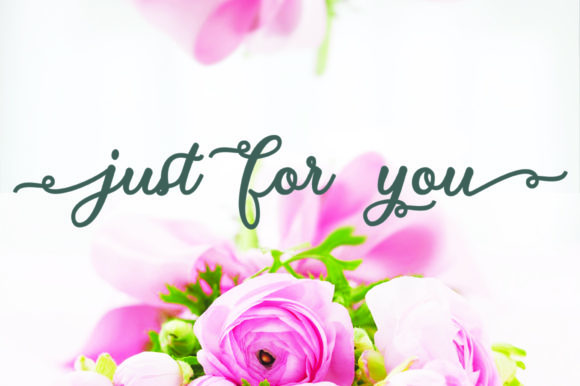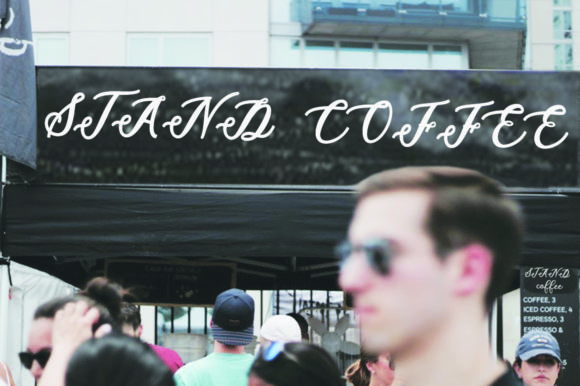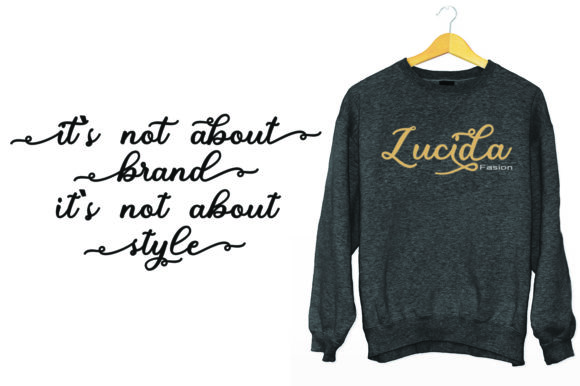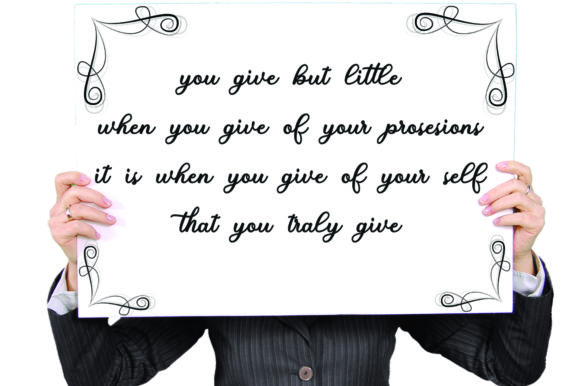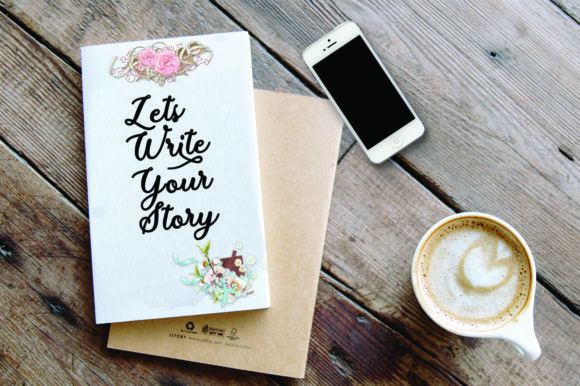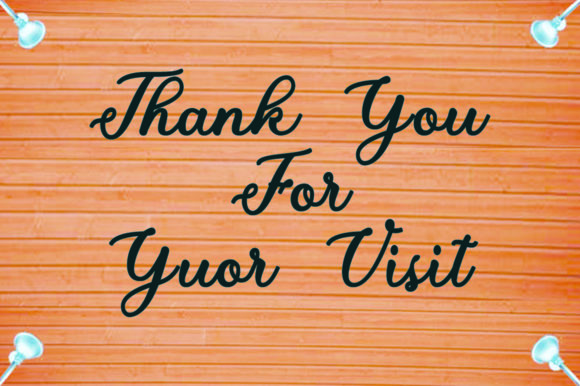
HomeScript FontsCottina Font Script Fonts Cottina Font FacebookXPinterestWhatsApp Cottina Font Poster 2 Cottina Font Poster 3 Cottina Font Poster 4 Cottina Font Poster 5 Cottina Font Poster 6 Cottina Font Poster 7 About Cottina Font Cottina is a classic crafting font that will make any design stand out. Fall in love with its romantic elegance. DOWNLOAD ON CREATIVE FABRICAThis font is sold and delivered by Creative Fabrica. Font Canyon may earn a commission if you buy through this link. People also explored Kamerlian Aynilla Font Apocadot Font Lemonella Font Fireheart Kenzie Authoquick Font Autumn Font Beauty Dahyina Font 355 0 TagsCottina Font Previous articleBeach Girl FontNext articleDenita Font LEAVE A REPLY Cancel reply Comment: Please enter your comment! Name:* Please enter your name here Email:* You have entered an incorrect email address! Please enter your email address here Website: Save my name, email, and website in this browser for the next time I comment. Personal Use Free Setta Personal Use Free Read more about this font Imelda Personal Use Free Read more about this font Solaria Personal Use Free Read more about this font Equestrain Personal Use Free Read more about this font BLOG Elegant Wedding Invitation Fonts – Handwritten & Script Fonts Elegant Wedding Invitation Fonts Your wedding day is one of the most important moments of your life, and every detail matters—including your invitation design. Our... 5 Fonts That Will Dominate Design Trends in 2026 Free Fonts Risk: Why Free Fonts Can Be Dangerous for Designers Best Fonts for T-Shirt Design – Top 2025 Picks